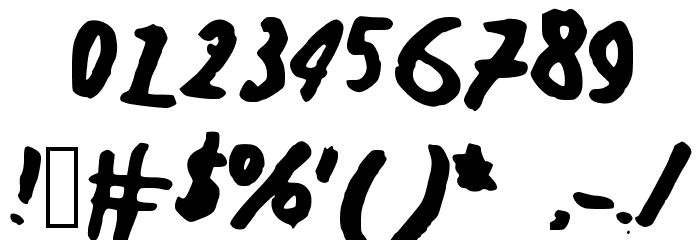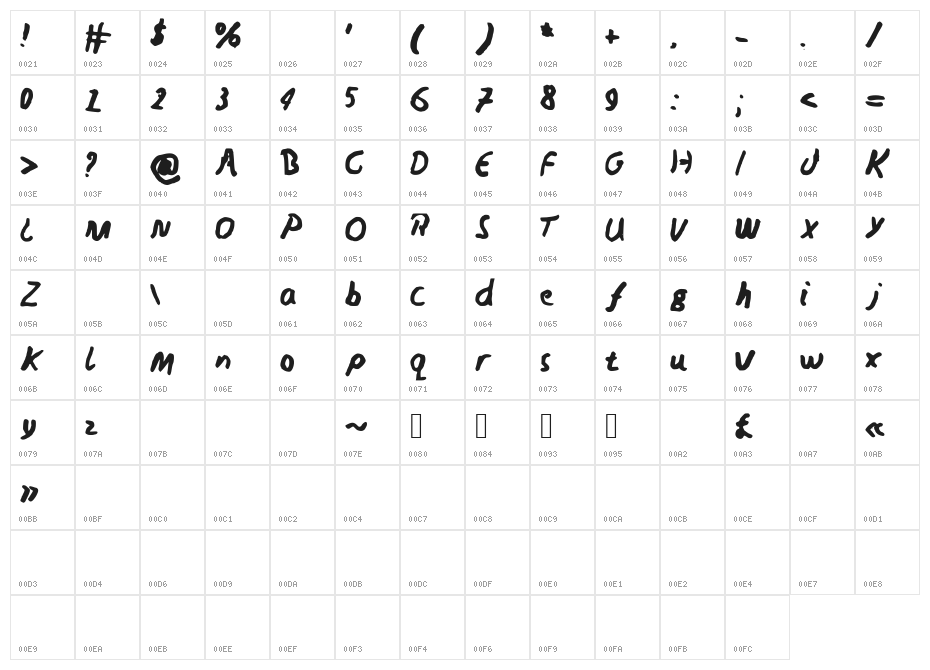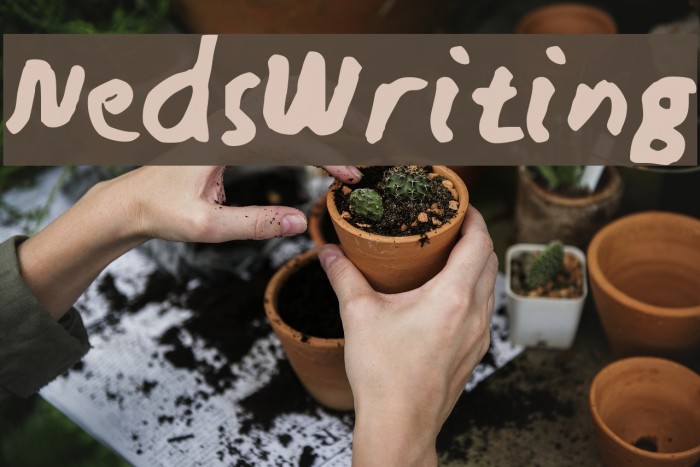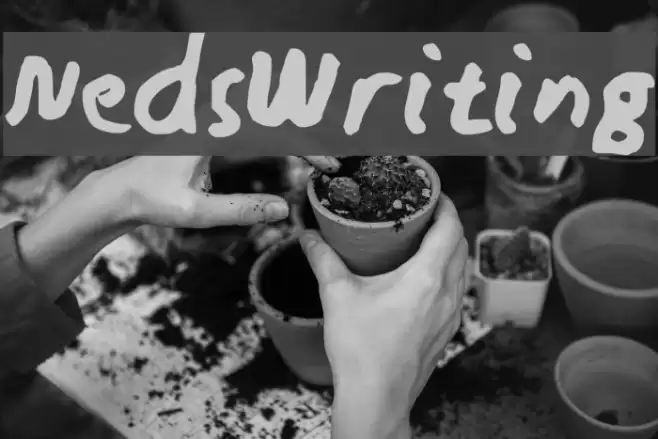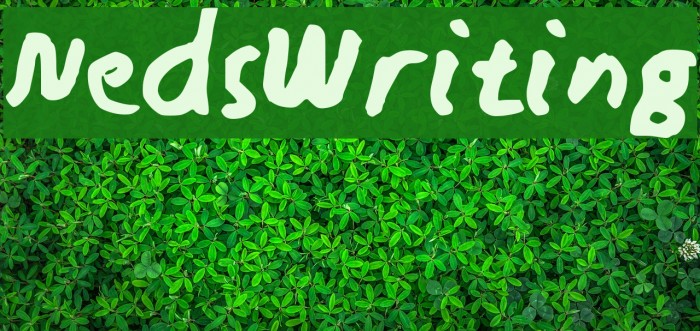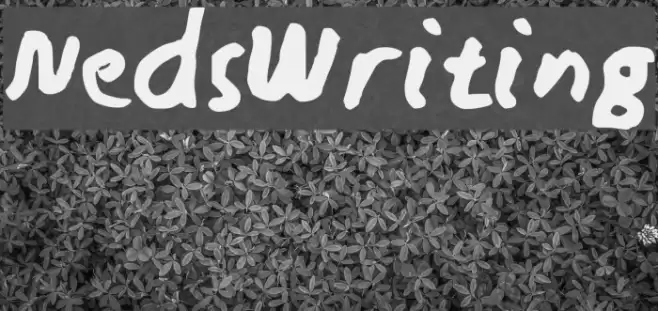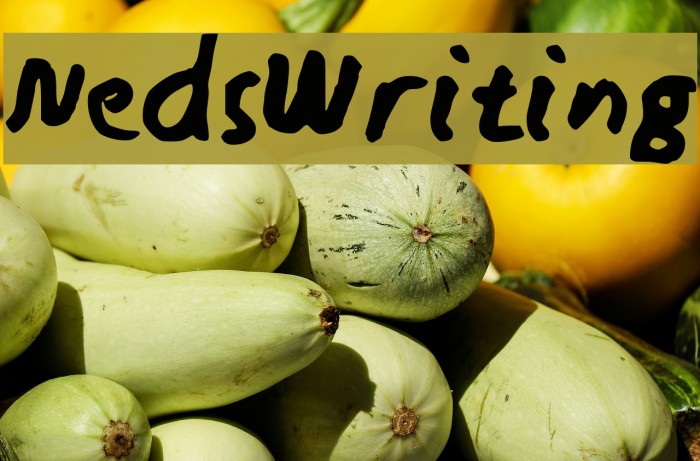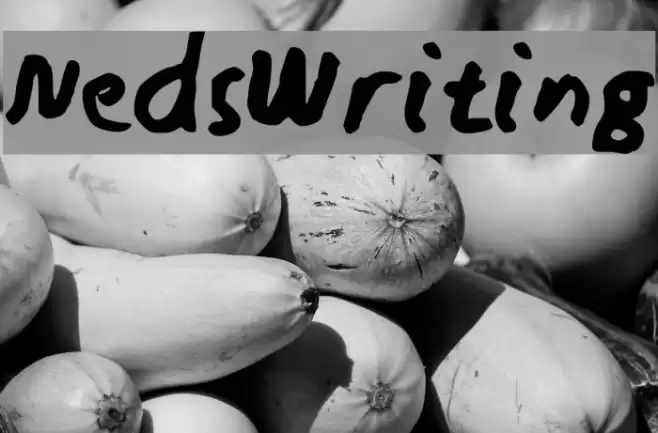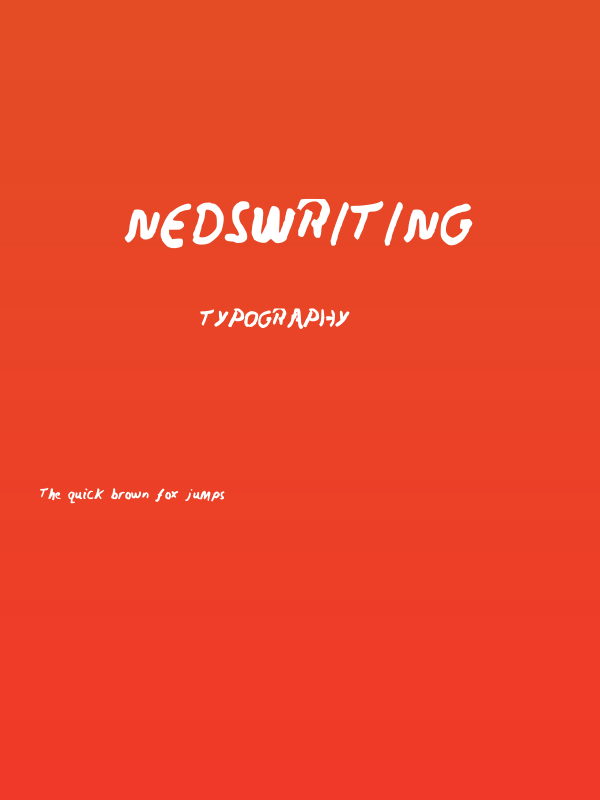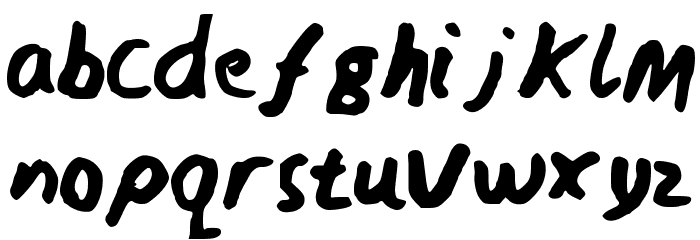
NedsWriting Font
NedsWriting Description
This font exudes a playful and informal style, characterized by its handwritten appearance. The letters are bold and slightly irregular, giving it a casual and approachable feel. The strokes are thick and consistent, with a medium contrast that adds to its legibility. The characters are closely spaced, creating a compact look that is both energetic and dynamic. The font includes a full set of uppercase and lowercase letters, numbers, and a variety of special characters, making it versatile for different uses.
| Overall Style | Playful, Informal |
| Use Case | Headlines, Informal branding, Creative projects |
| Proposed Projects | Ideal for creative projects such as greeting cards, posters, children's books, and informal branding. |